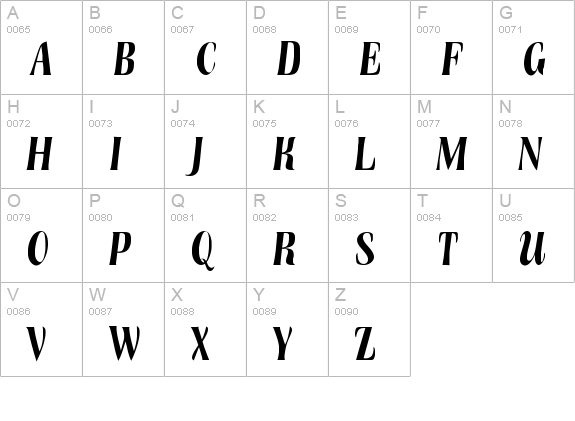
Broach Regular Font Details
Broach Regular is the standard, neutral variant in the Broach typeface family \xE2\x80\x94 well suited to general body text, paragraphs, and standard typographic work.
Broach Regular font is a versatile and modern typeface that exudes elegance and sophistication. Its clean lines and balanced proportions make it perfect for a wide range of design projects, from branding to editorial design. The sleek and timeless design of Broach Regular font makes it suitable for both headings and body text. The best part is that Broach Regular font is available for free download at FontsMarket.com, making it easily accessible for designers and creatives looking to add a touch of sophistication to their work. Don't miss out on the opportunity to elevate your designs with this stylish and elegant typeface. Download Broach Regular font today and see the difference it can make in your projects.